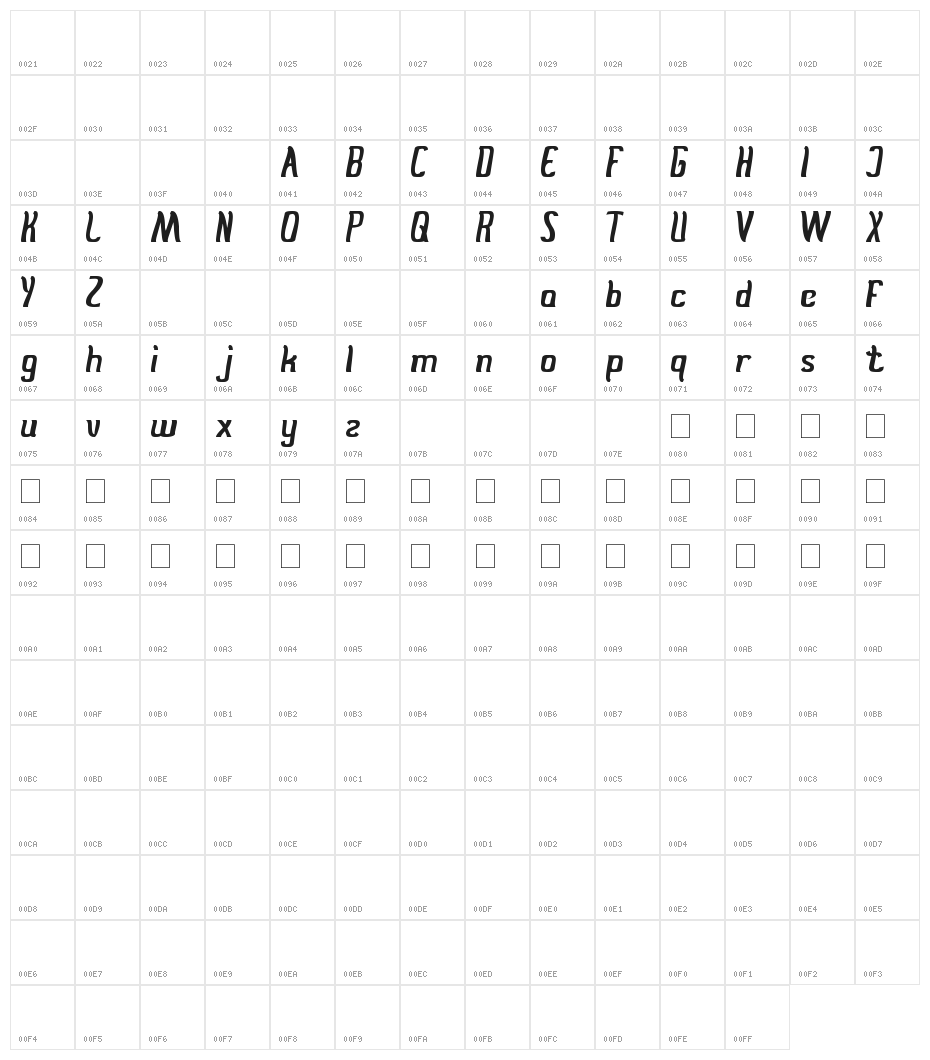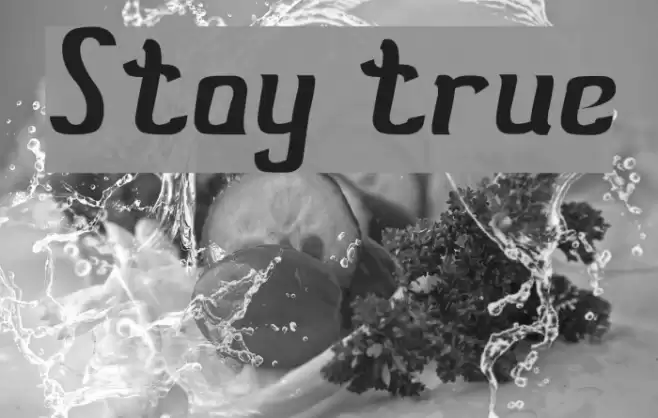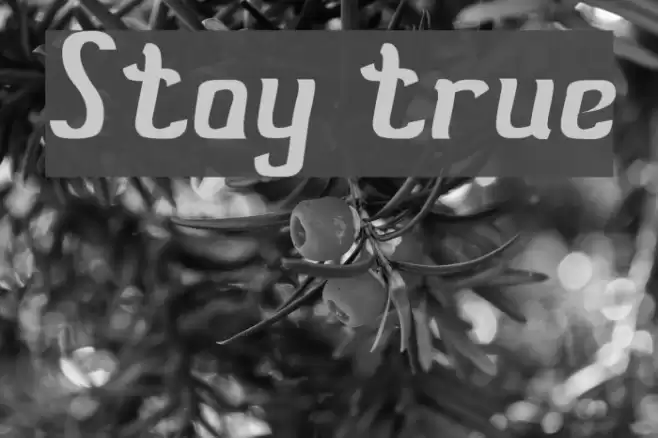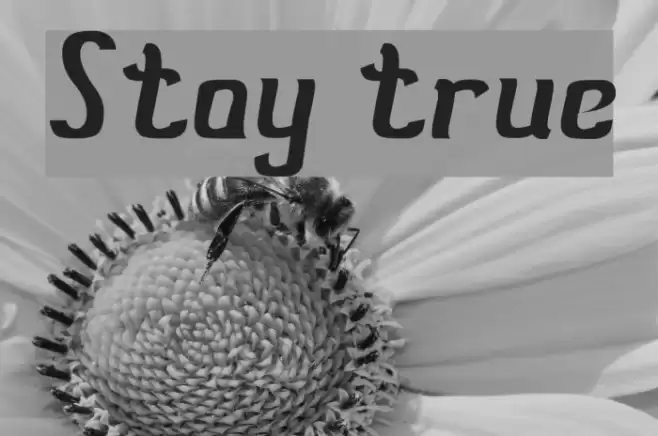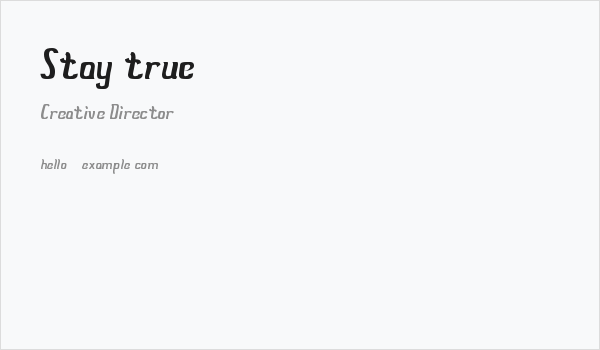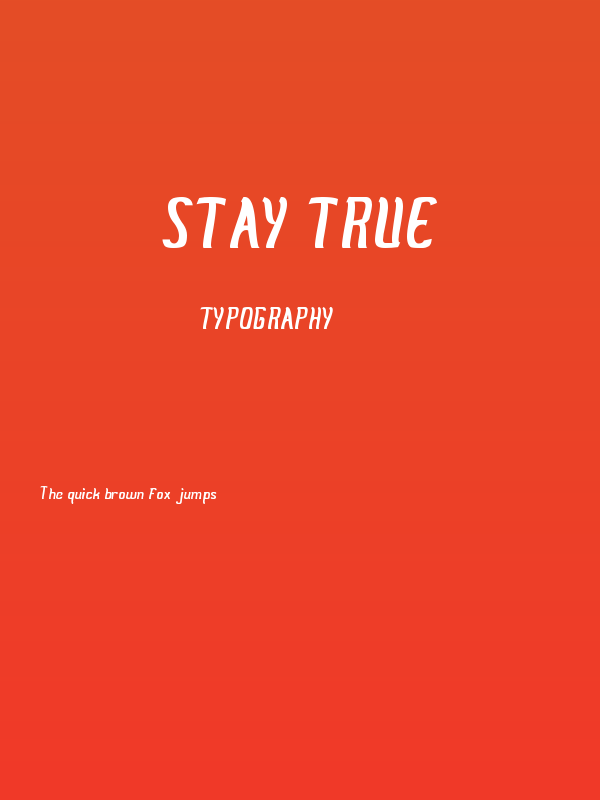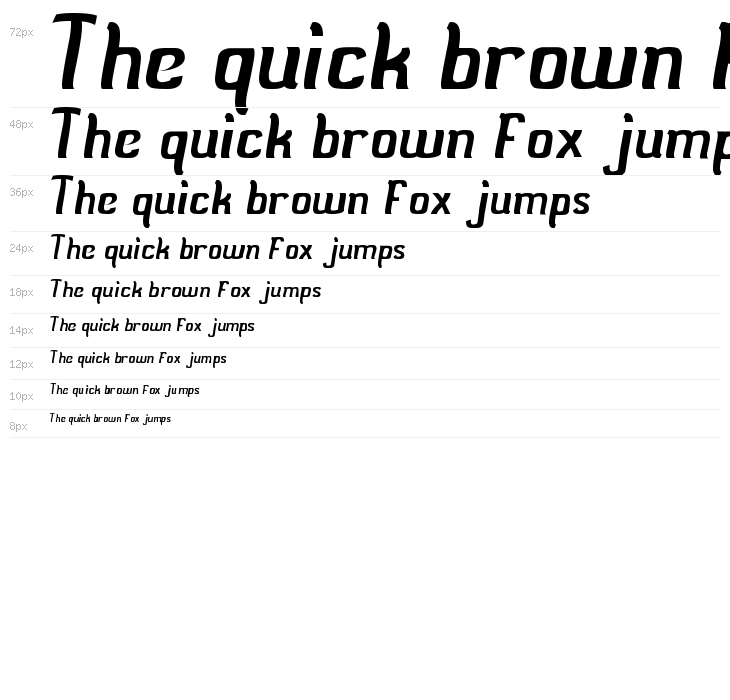
Stay true Font
Stay true Description
This font features a unique blend of modern and vintage styles, characterized by its bold, slightly condensed letterforms with a subtle slant, giving it a dynamic and energetic appearance. The uppercase letters are tall and commanding, while the lowercase letters maintain a consistent flow with distinctive curves and angles. The font's strokes are moderately thick, providing a medium contrast that enhances readability while maintaining a stylish flair. The character spacing is normal, allowing for clear legibility across various text sizes. This font's overall aesthetic is both eye-catching and versatile, making it suitable for a wide range of design applications.
| Overall Style | Modern Vintage |
| Proposed Projects | Ideal for branding, headlines, posters, and packaging design projects that require a bold and stylish touch. |